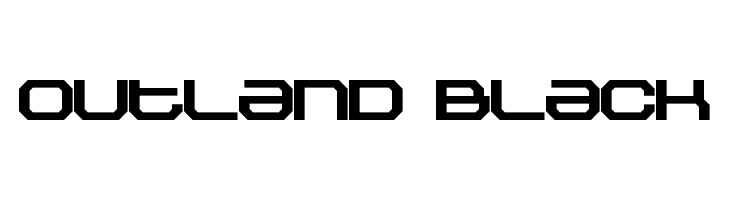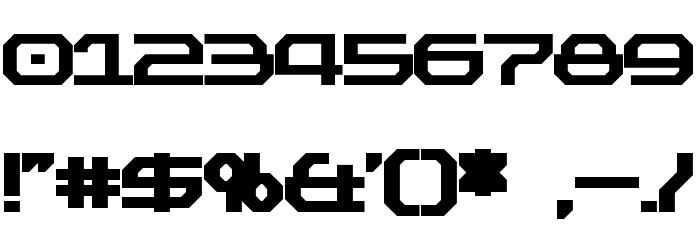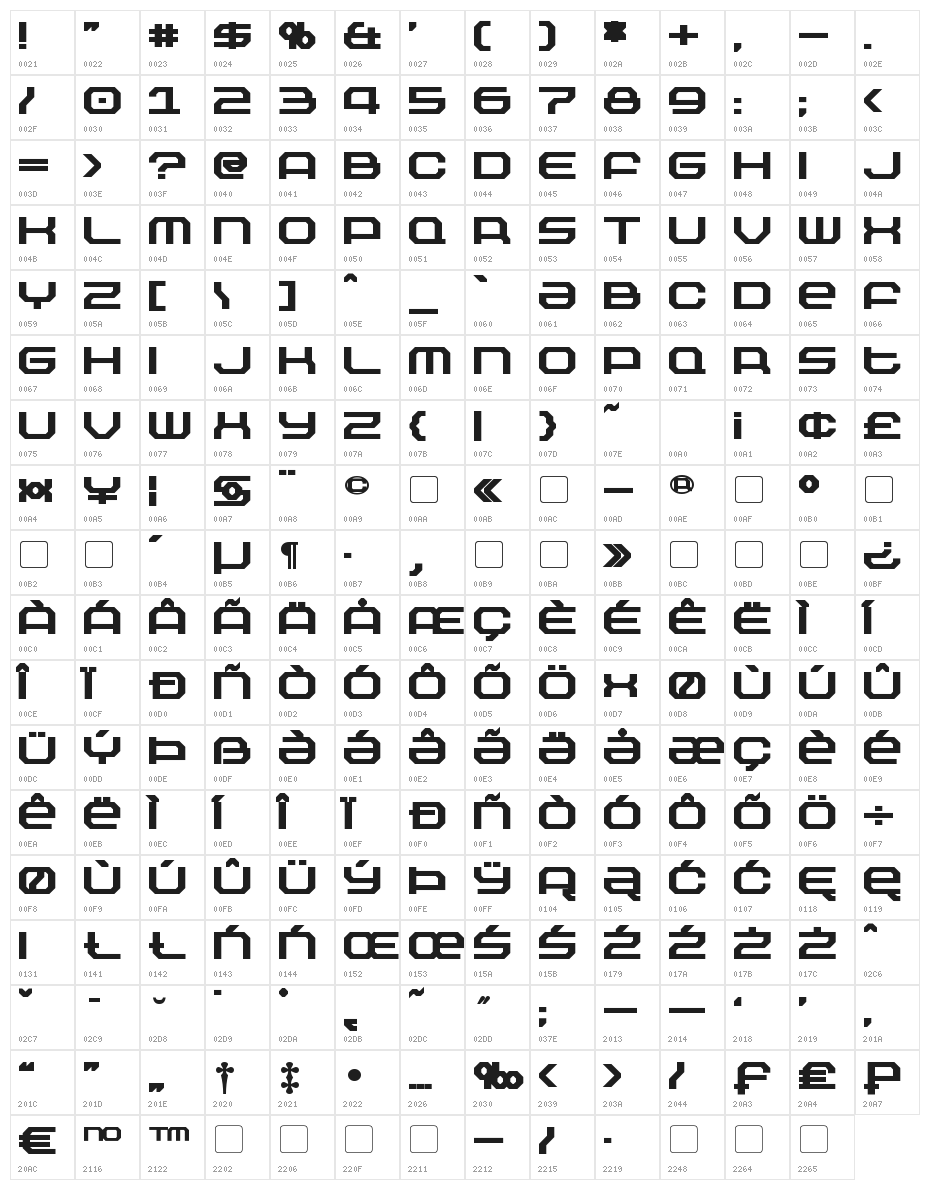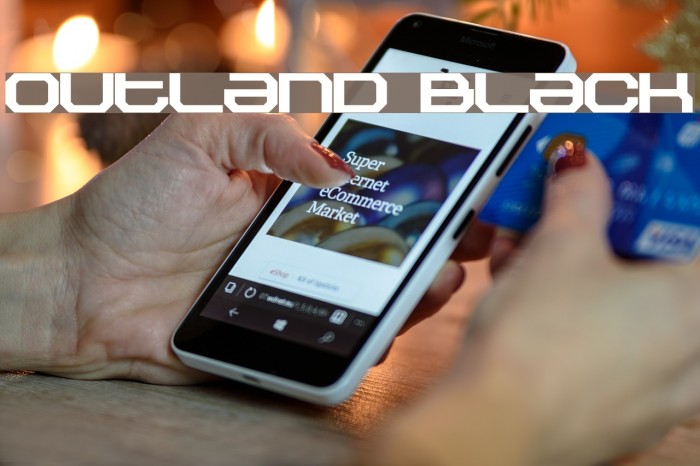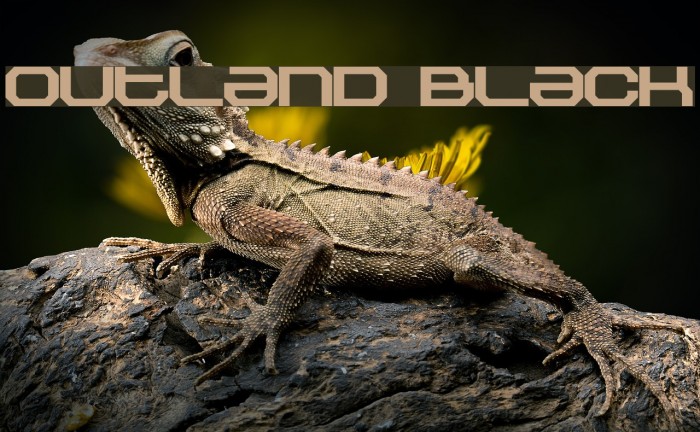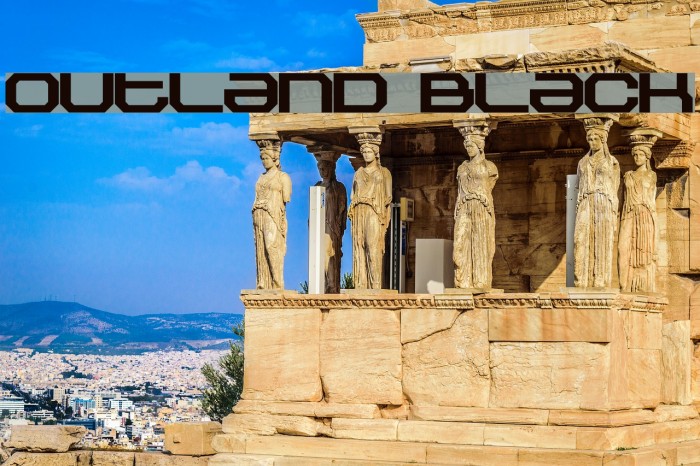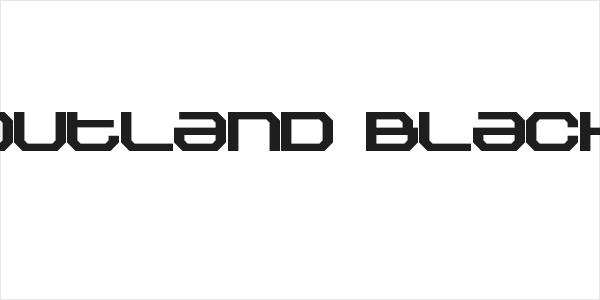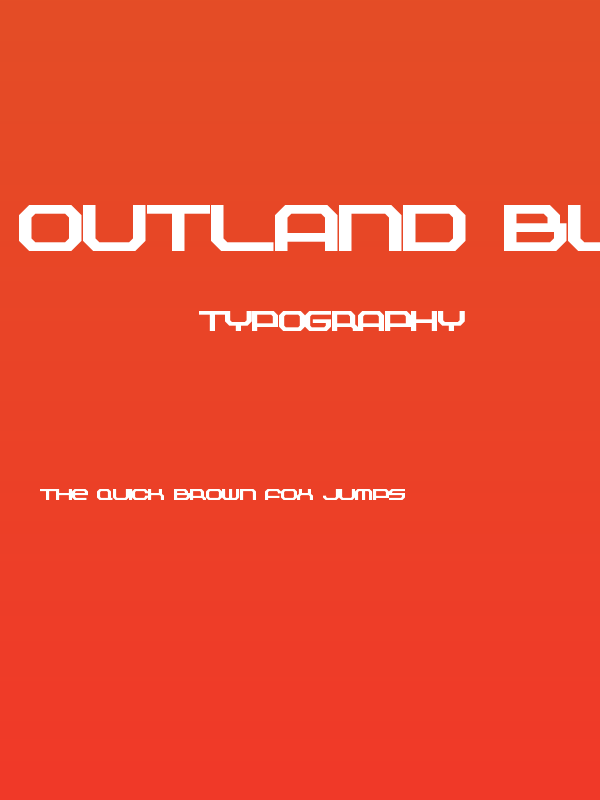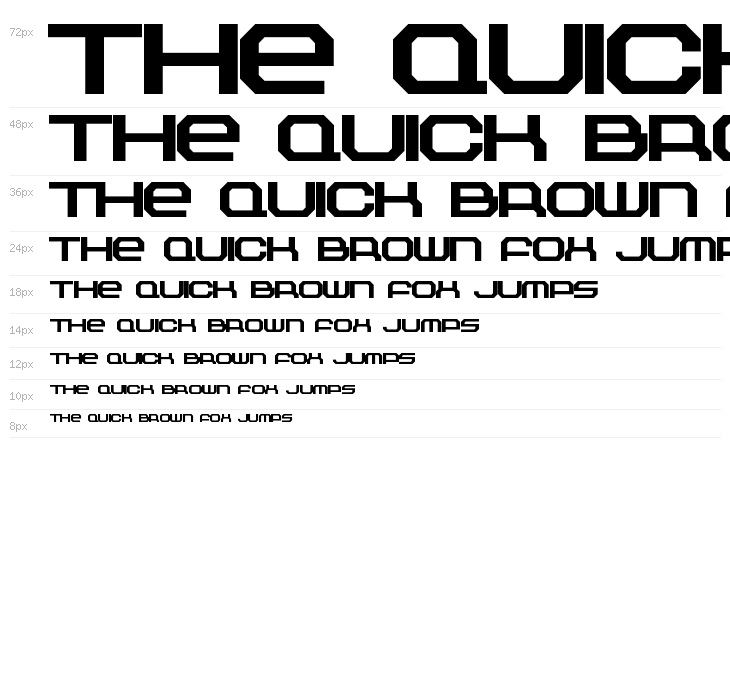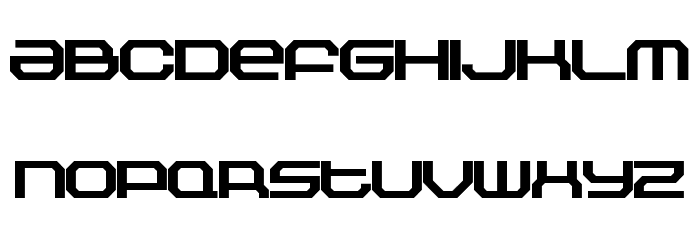
Outland Black Font
Outland Black Description
This font features a bold, geometric design with a futuristic and digital aesthetic. The characters are constructed with sharp angles and straight lines, creating a sense of precision and modernity. The uppercase and lowercase letters maintain a consistent style, with a uniform height and width that enhances readability. The numerals and special characters follow the same design principles, ensuring a cohesive look across all elements. This font's unique style makes it stand out, ideal for projects that require a strong visual impact.
| Proposed Projects | Ideal for technology branding, video game titles, sci-fi posters, and digital interfaces. |